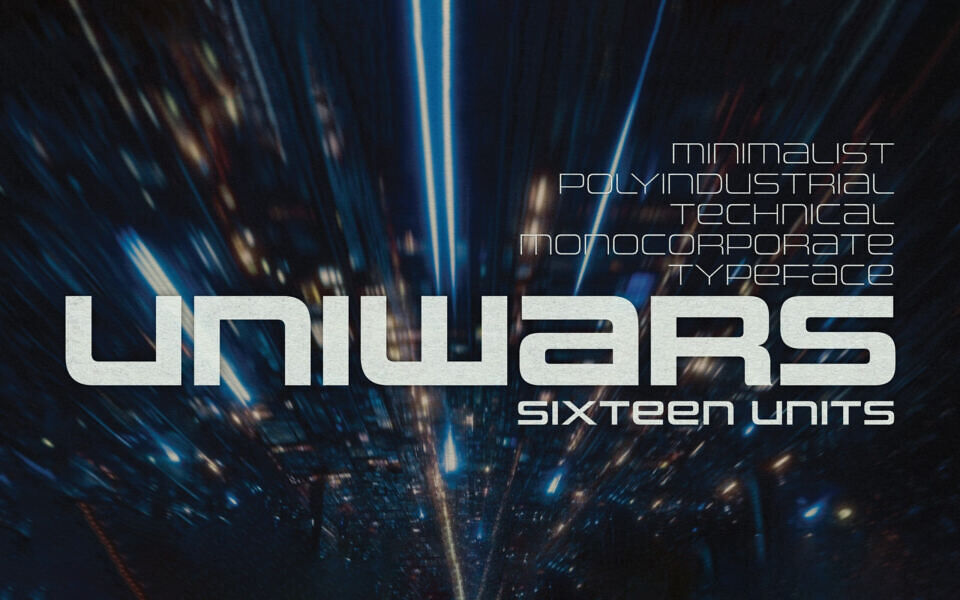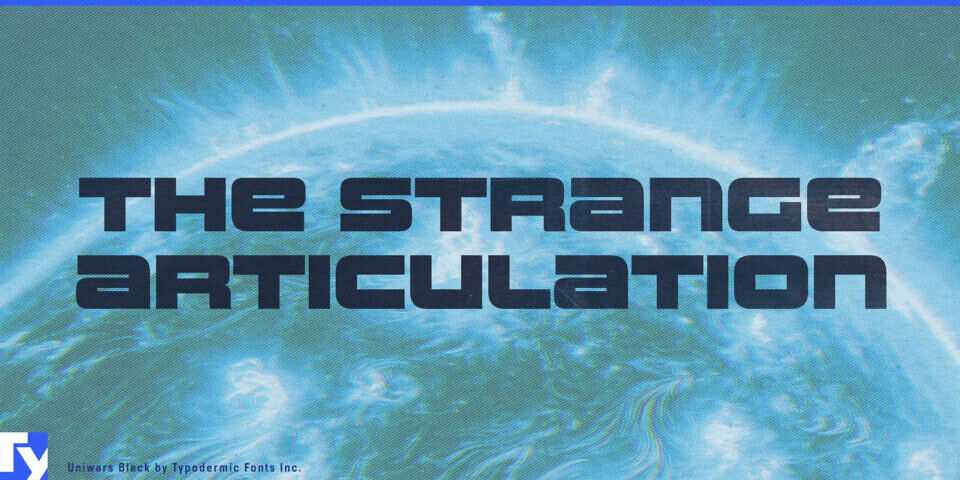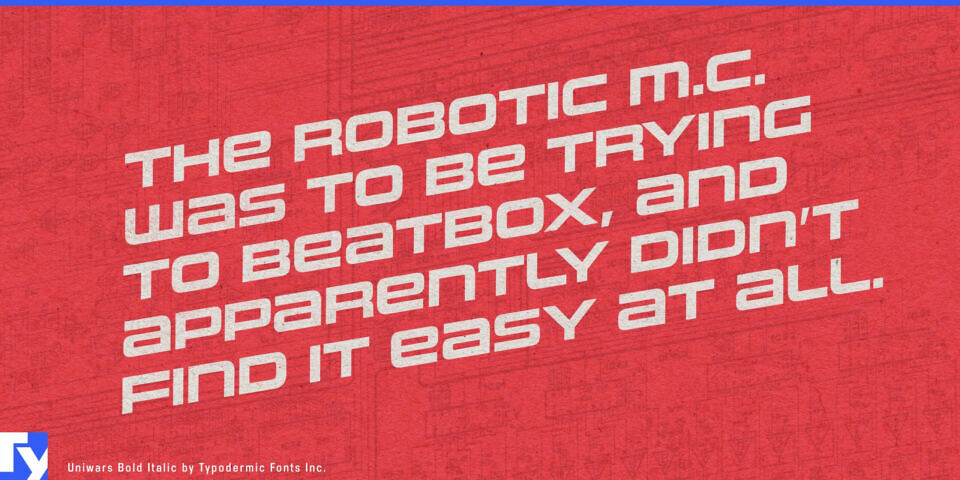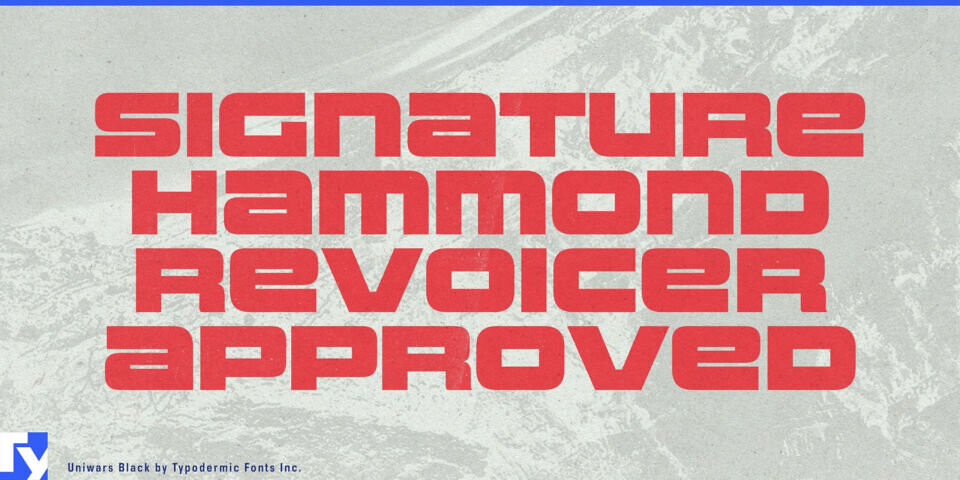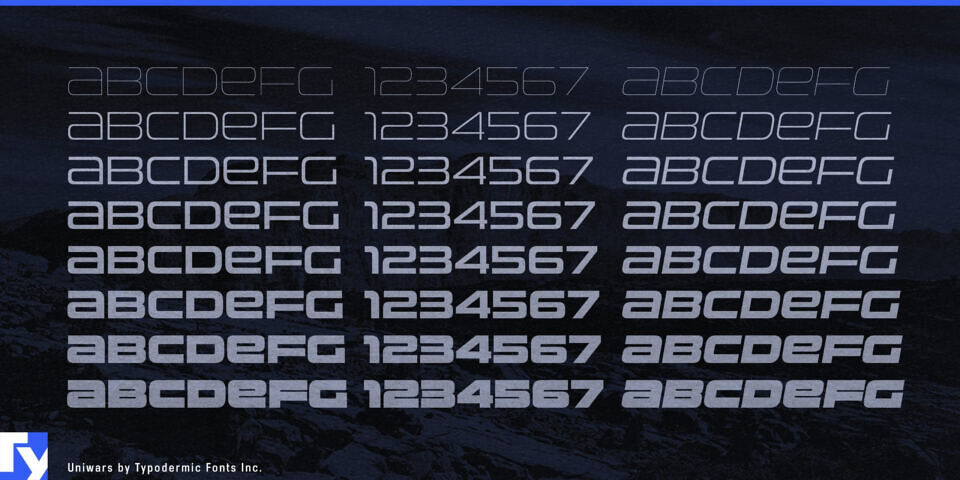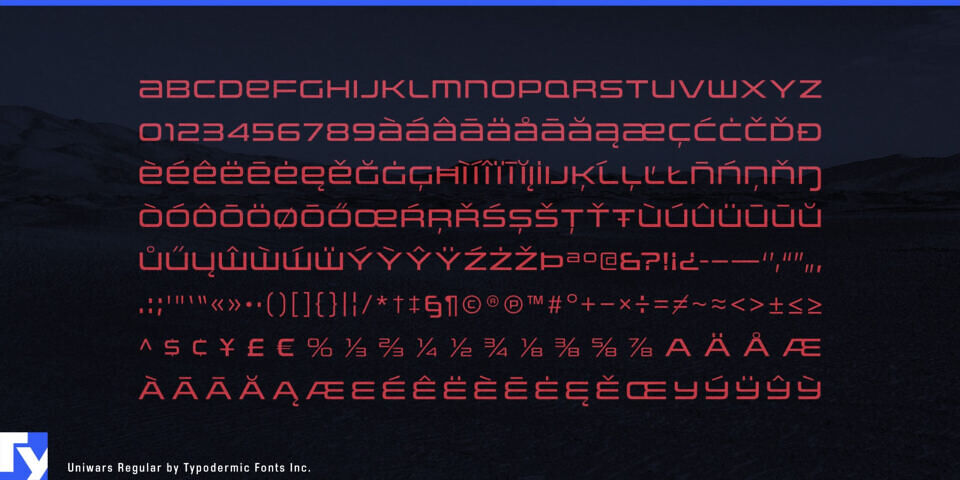
Uniwars draws inspiration from the angular typography of Japanese industrial signage. Built on a modular grid, its strong verticals, firm horizontals, and sharp diagonals give the letters a crisp, engineered presence.
The design works equally well for game interfaces, tech branding, sci-fi graphics, and bold display typography. Clean geometry and balanced spacing keep it clear in both digital and print environments, delivering a confident, futuristic voice.